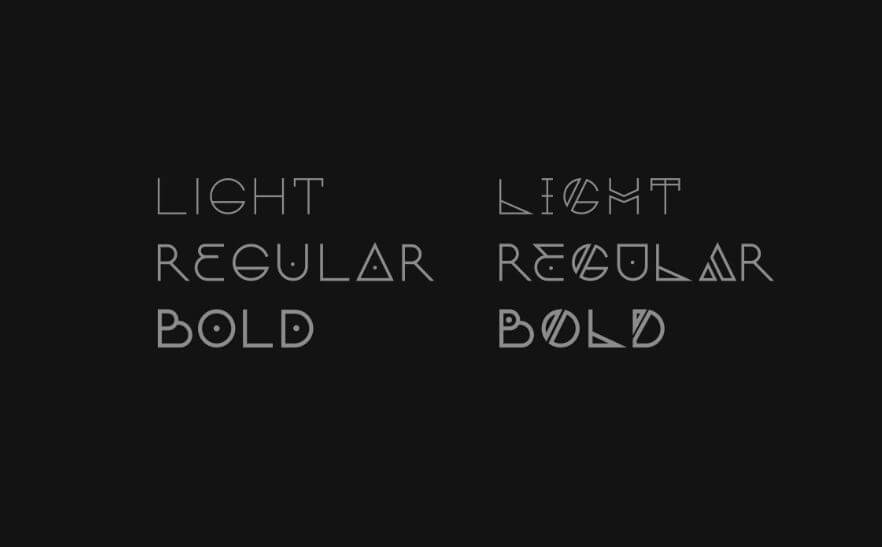
Nordic Font
The Nordic font is a versatile sans serif font family commonly utilized for long text passages and headlines. Its simple texture makes it ideal for editorial design.
Nordic is an experimental typeface, that looks likeĀ lelushka font used to be constructed from the proposal of Norwegian runes.
Style Of Nordic Font